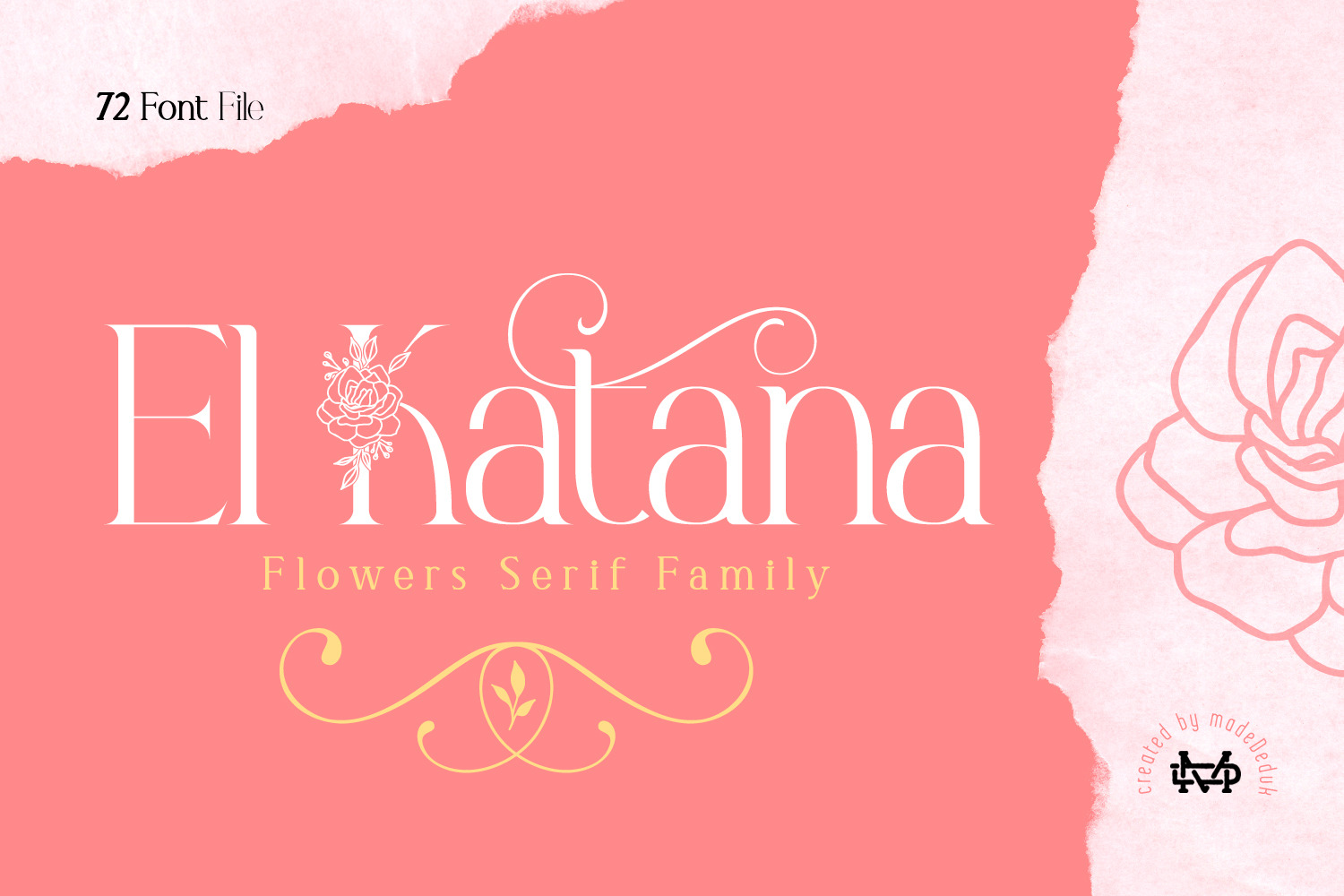
El Katana Family - 72 Font
Really excited to introduce El Katana is a luxury serif family with flowers in each type so you can safe more time to design and comes with much version! Comes with 72 font file, 3 weight and flourish ornament. A lot of stylish will makes this font suitable for your any project design.